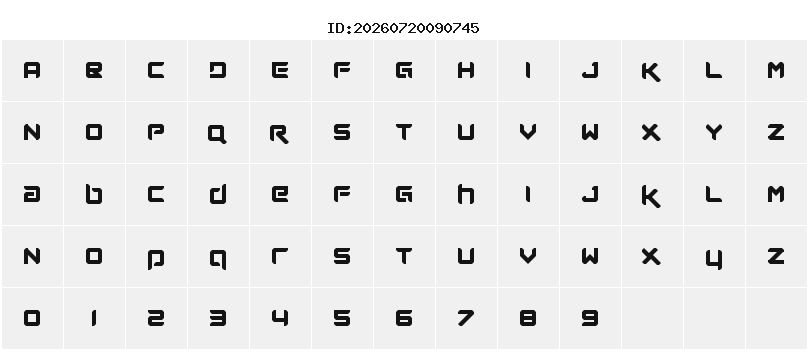
• Font Name: Future Now
• Designer: Andrew McCluskey
• Description: ‚ÄúFuture Now‚Äù was built with FontStruct
Future Now.ttf is a modern, elegant sans-serif font designed for ultimate readability and visual harmony. Perfect for branding, headlines, web design, and print materials.